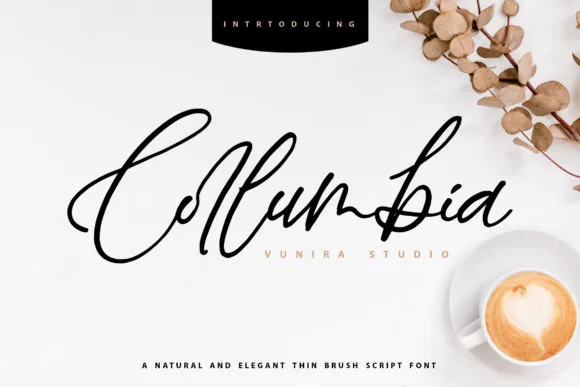
About Collumbia Font
Collumbia is a fashionable and delicate script font. It is PUA encoded which means you can access all glyphs and swashes with ease! Use this font for your designs and explore its endless possibilities.